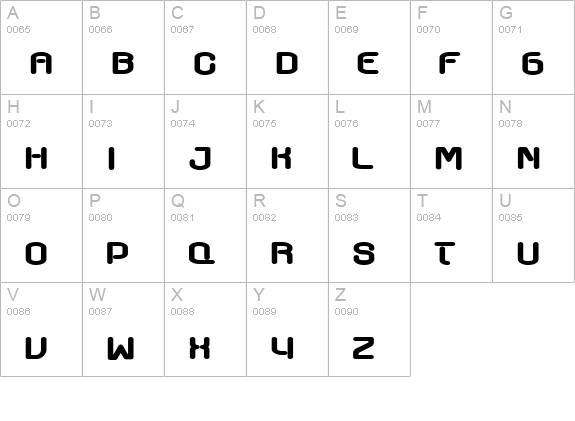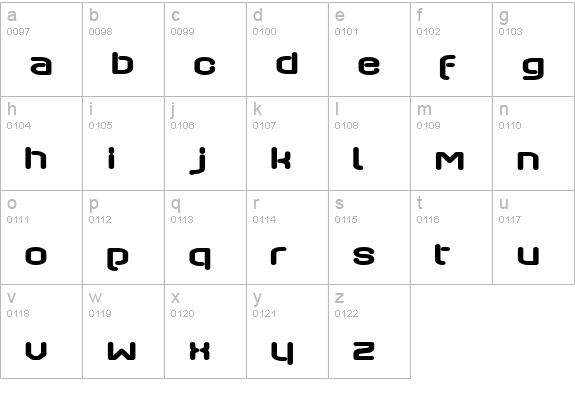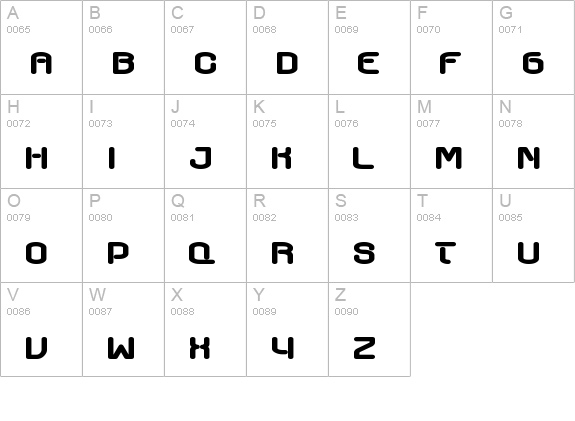
Introducing Axaxax Font - a modern and stylish typeface that exudes elegance and sophistication. This versatile font is perfect for a wide range of design projects, from branding and advertising to social media graphics and packaging. With its clean lines and sleek curves, Axaxax Font adds a touch of sophistication to any design. What sets Axaxax Font apart is not just its sleek design, but also the fact that it is available for free download at FontsMarket.com. This means that you can easily access this beautiful font and use it in your projects without any cost. Whether you are a professional designer or someone looking to add a touch of style to your personal projects, Axaxax Font is the perfect choice. Download Axaxax Font today from FontsMarket.com and elevate your designs with this stunning and elegant typeface.